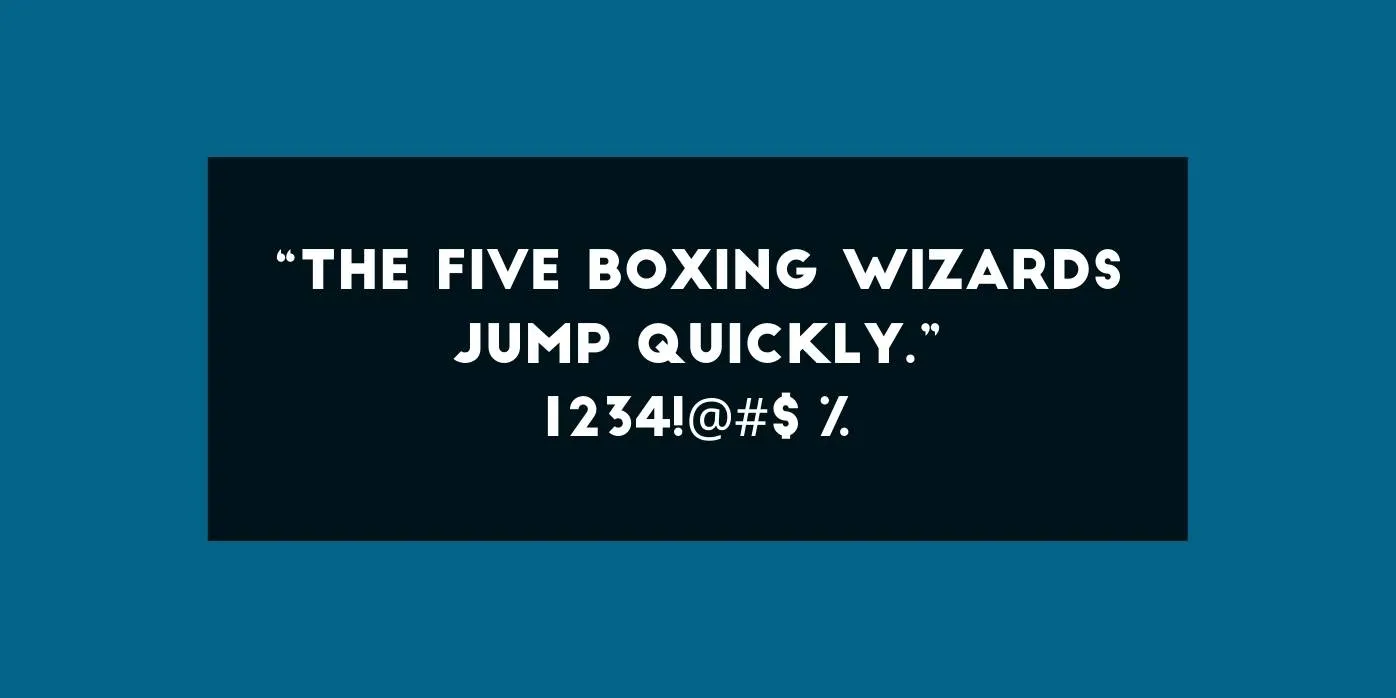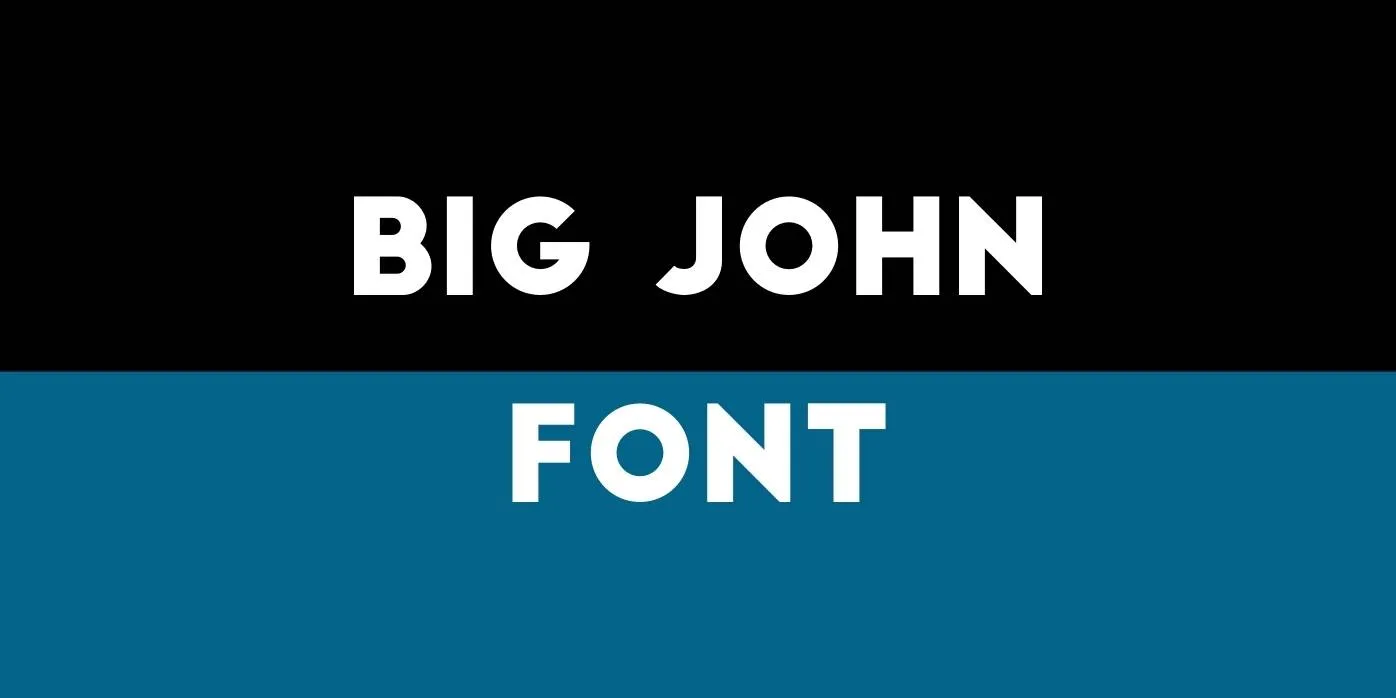
Big John Font
In this post, we present a very gorgeous typeface known as Big John Font. It belongs to the sans serif family. The creator of this family was Mr. John Berlow.
He was born in the year of 1872 and died in the year of 1940. It is well specified for the CSS. This stunning font was mainly used for display purposes. It is influenced by the classic sans serifs such as grand font and somatic font.
The Big John font has two different styles: regular and inline. The regular style is more commonly used, while the inline style is used for display purposes only. This typeface is perfect for headlines, logos, and posters. It is also suitable for short texts.